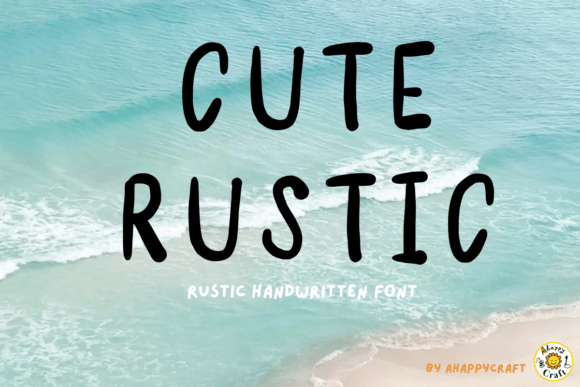
The Charm of Cute Rustic: A Font That’s Stealing Hearts
I’ll never forget the time I was working on a whimsical craft project, pouring my heart and soul into designing the perfect invitation. But, I was stuck on one thing: finding the right font. I scrolled through page after page of Google Fonts, but nothing seemed quite right. That was until I stumbled upon Cute Rustic, a sweet and friendly handwritten font that instantly captured the essence of my project. In this article, I’ll share my love for Cute Rustic, its unique features, and how you can make the most of it in your designs.
An Honest Review of Cute Rustic
What I Love About Cute Rustic
• Unique and Natural Style: Cute Rustic has a one-of-a-kind, handcrafted feel that makes it perfect for a wide range of designs, from rustic wedding invites to playful craft projects.
• Ease of Use: This font is incredibly easy to read and works beautifully in both digital and print formats.
• 💕 Emotional Connection: Cute Rustic has a way of evoking warmth and friendliness, making it ideal for projects that require a personal touch.
While Cute Rustic is an amazing font, there are a few things to keep in mind:
• 🤔 Legibility at Small Sizes: Like many handwritten fonts, Cute Rustic can become a bit tricky to read at very small sizes. It’s best used at larger sizes (around 20-30px or larger) for optimal readability.
• ⚠️ Overuse: While Cute Rustic is incredibly versatile, using it excessively in a single design can make it feel overwhelming. Balance is key.
Cute Rustic comes with a range of OpenType features, including stylistic alternates and glyphs, which can add an extra layer of creativity to your designs:
• Stylistic Alternates: Swap out certain letters for alternate versions to add visual interest.
• Glyphs: Access special characters and symbols to enhance your design.
The Story Behind Cute Rustic
Cute Rustic was designed with the intention of creating a font that feels both handmade and approachable. The designer aimed to capture the essence of rustic charm, perfect for crafty projects, wedding invitations, and more. The result is a font that’s not only visually appealing but also incredibly versatile.
Q: What makes Cute Rustic unique?
A: Cute Rustic’s unique, handcrafted style and natural feel set it apart from other fonts.
Q: Is Cute Rustic difficult to read?
A: Cute Rustic is generally easy to read, but like many handwritten fonts, it can be challenging at very small sizes.